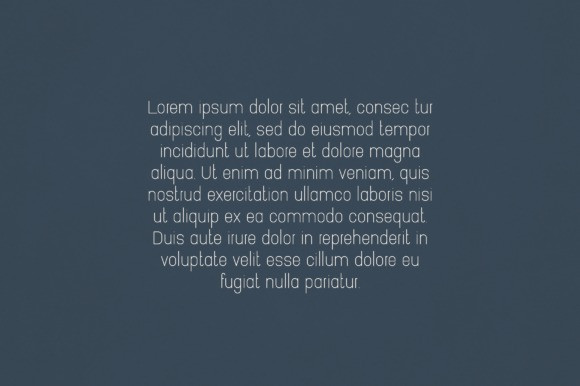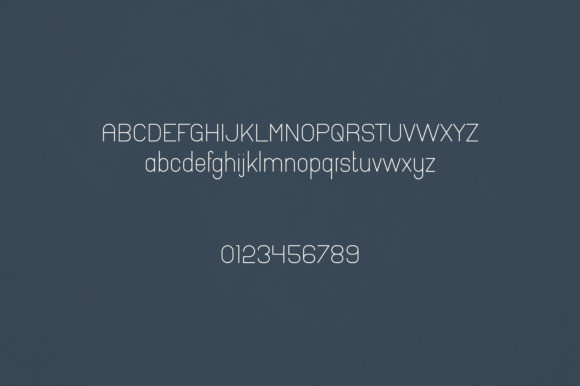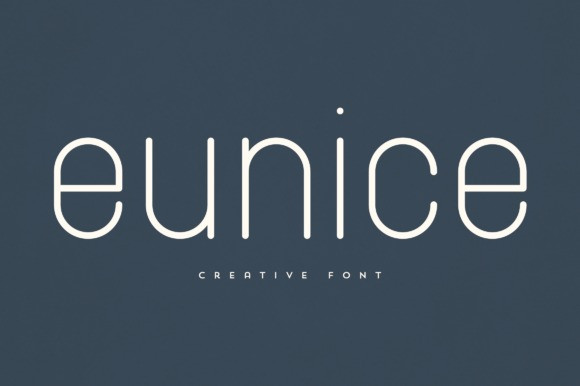
Eunice Font
Eunice Font is an elegant and versatile sans serif font that will make your typography truly unique! It will enchant every logo, branding, headline, or plain text!